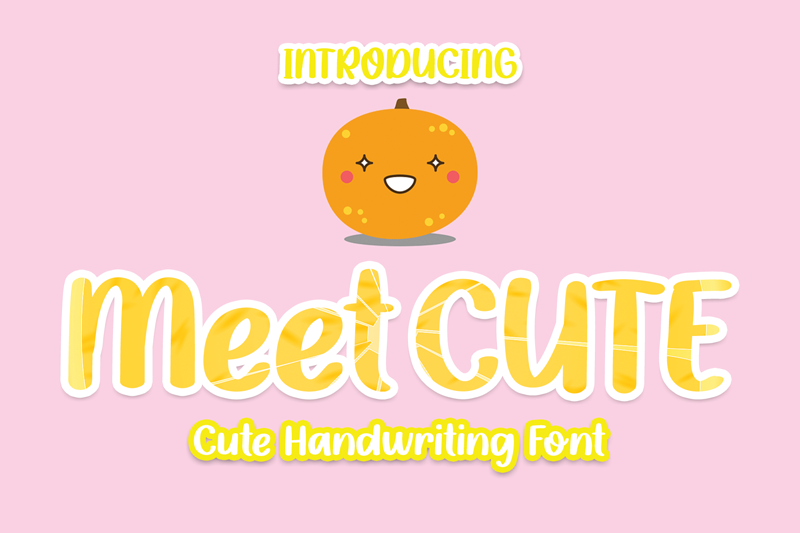
Preview and download Meet Cute Font. Created by Luluk Surotul in Script Various styles with Free for personal use license.
Meet Cute is a friendly and cool paint brushed handwritten font. Whatever the topic, this font will be a wonderful asset to your fonts� library, as it has the potential to enhance any creation. Attention : Meet Cute handwriting Font is prohibited to use this font for commercial purposes or for profit without the permission of the author/admin, without being known to use this font without permission, will be subject to sanctions 5x the specified price. This font is used only for demos (Demo license) If you want to use this font for commercial use please contact email: elllulukstudio123@gmail.com or click the link below: https://www.creativefabrica.com/product/meet-cute/ref/761303/ If you want to see more other fonts, please click: https://www.creativefabrica.com/designer/el_hotcig/ref/761303/ Any donations are very appreciated. Paypal account for donation: https://www.paypal.com/paypalme/luluk783 thanks. |